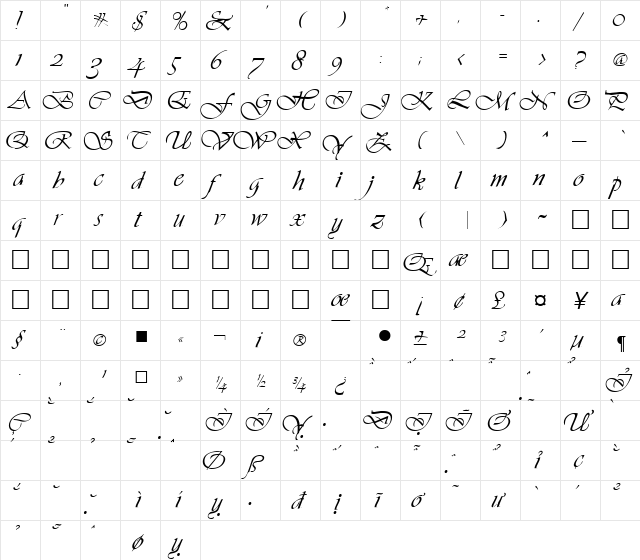
VNI-Vivi Regular
Design Context for VNI-Vivi Typeface
VNI-Vivi is a composed and adaptable typeface that performs quietly and consistently across a wide range of design contexts.